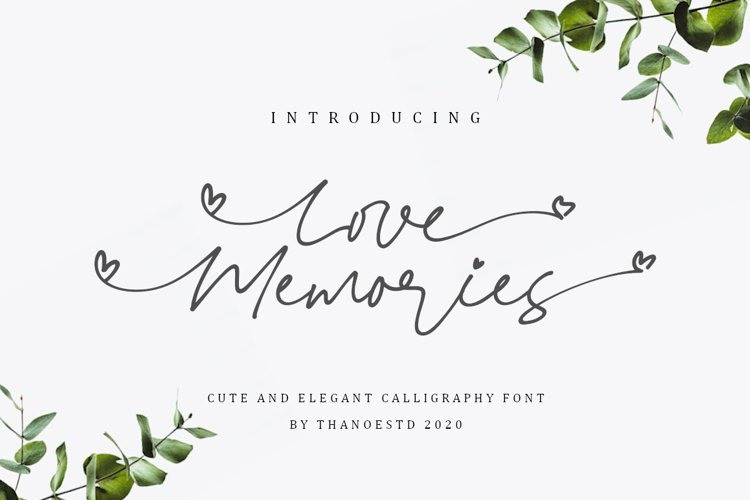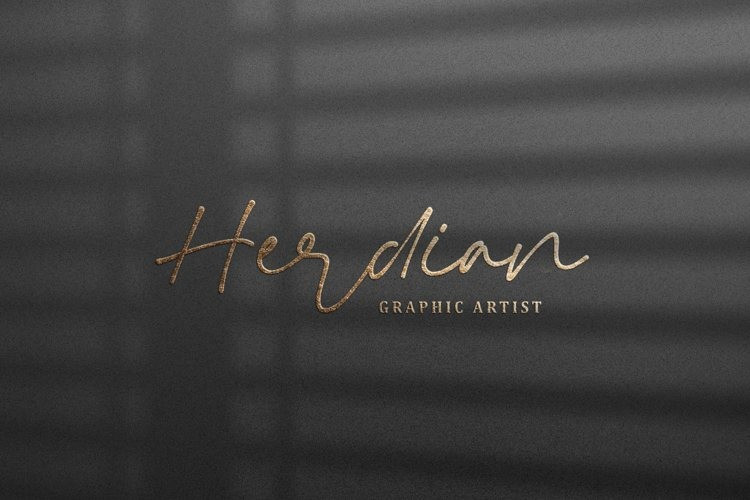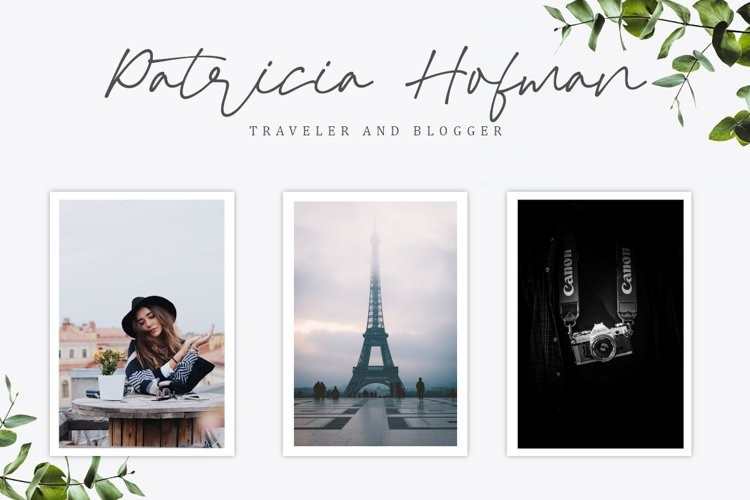
Love Memories Handwritten Font
Love Memories is a cute handwritten font. It features heart-themed characters that will add a romantic touch to your designs. It’s perfect for stationery, greeting cards, branding and much more!